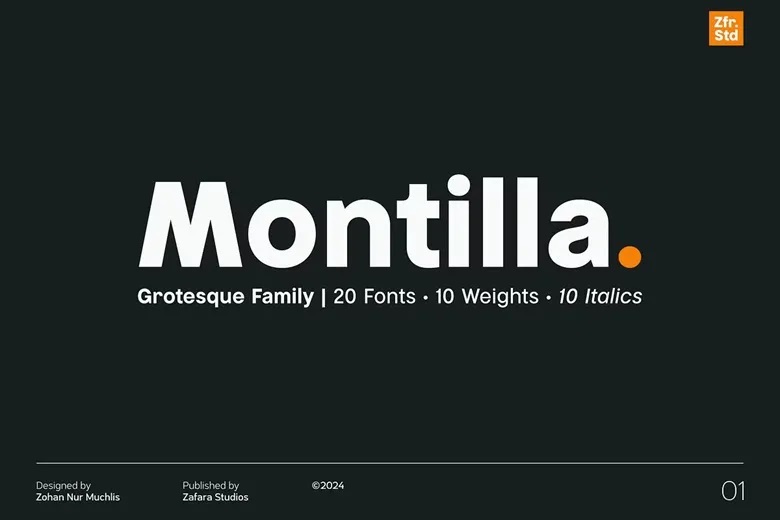
Montilla Font
Montilla is a very usable typeface, it is clean and quite geometric without many flourishes while still maintaining a very high legibility which will be useful in many different contexts. It has a plain and low profile, which is well suited for offices and modern environment, in which laconism is valued most.
Montilla is best for corporate identities, newspapers and magazines’ designs, website and application interfaces, ads and billboards, signage systems, product and project packaging, educational applications, and other creative works.
As a sans-serif typeface, Montilla has 10 weights ranging from Thin to Black and thus opens a broad range of typographical opportunities, enabling the fine tuning of body text where thin and heavy italic variants of the 10 weights create impressive text hierarchy.
Montilla Sans Serif Font